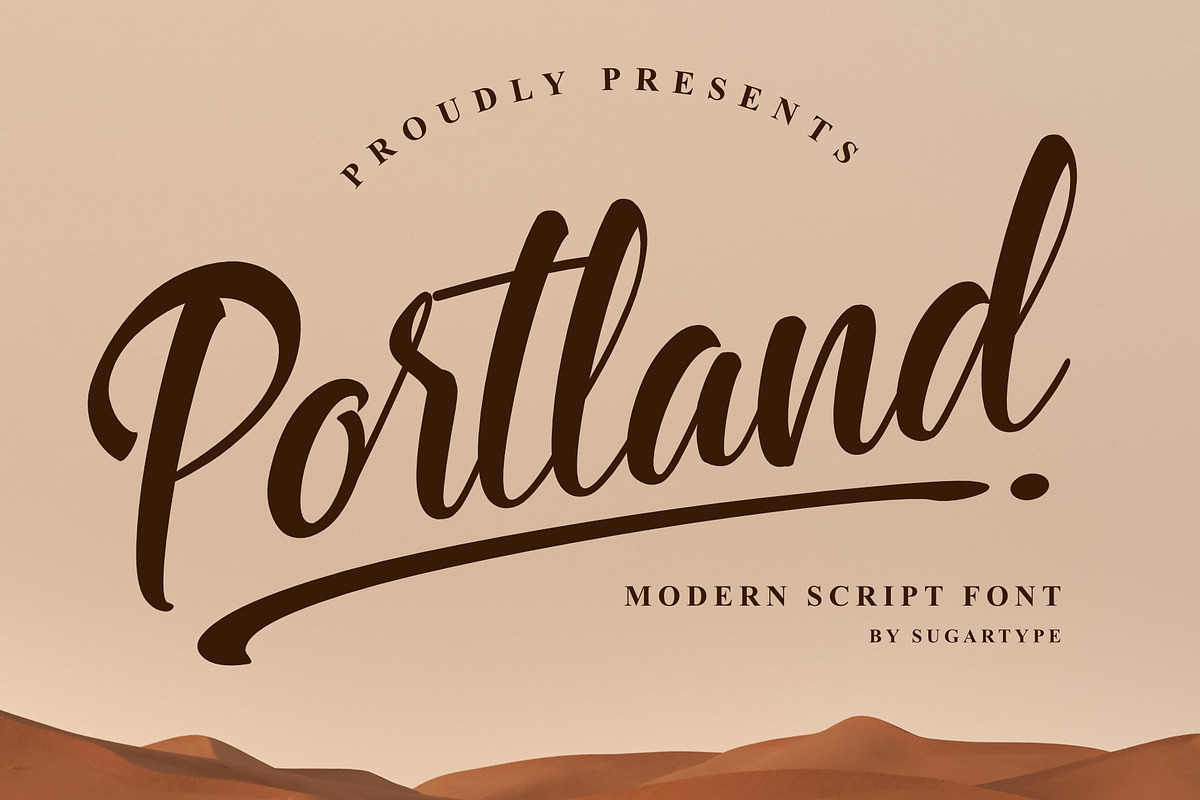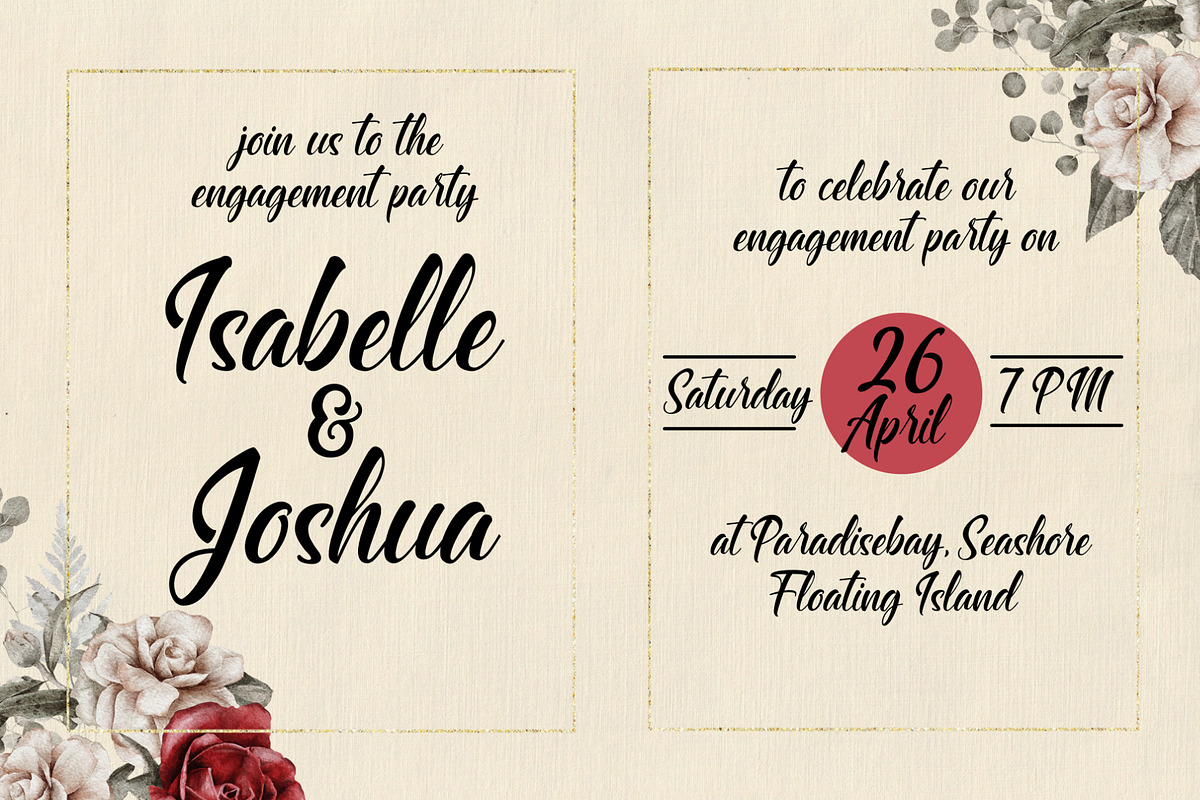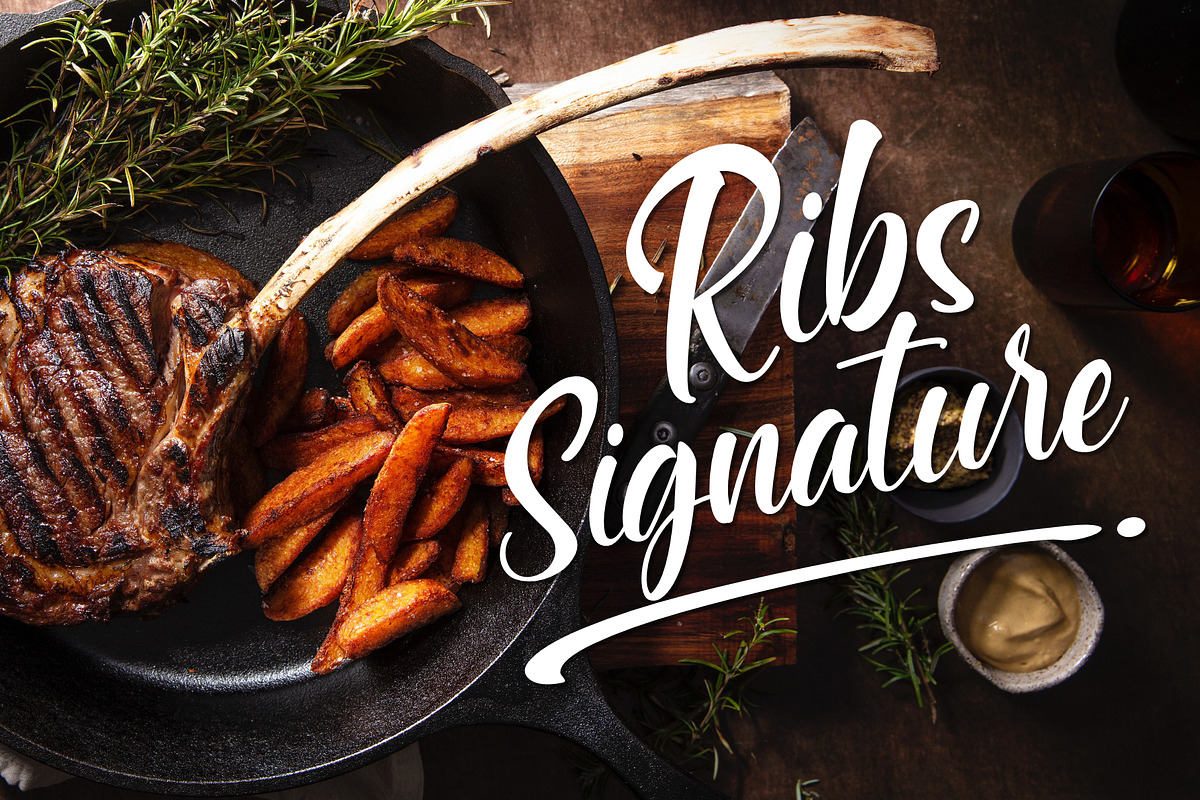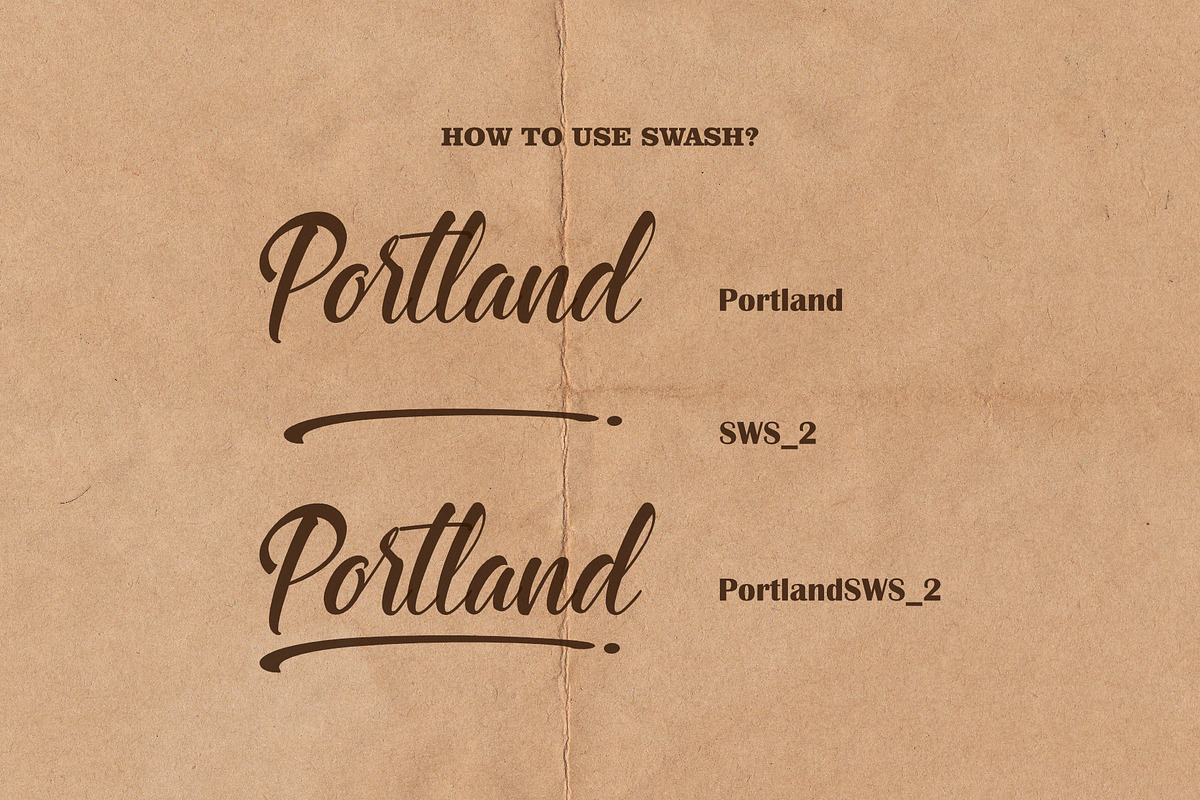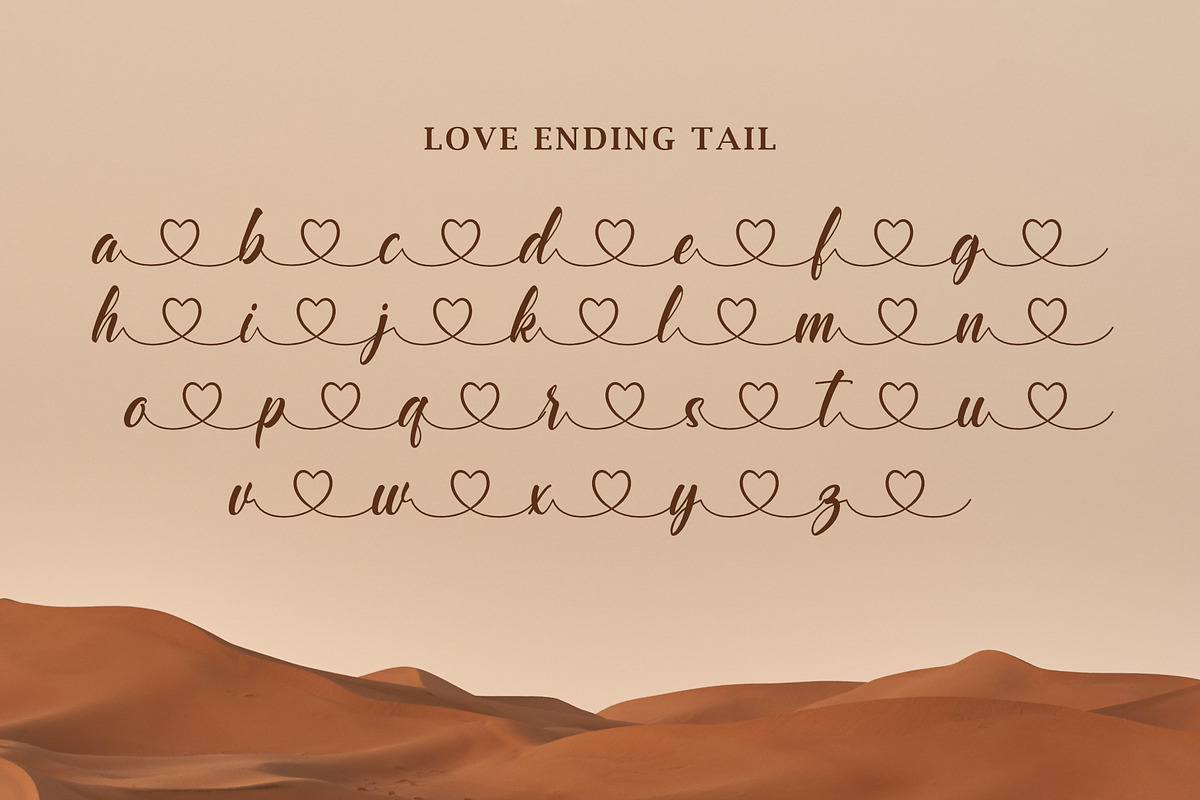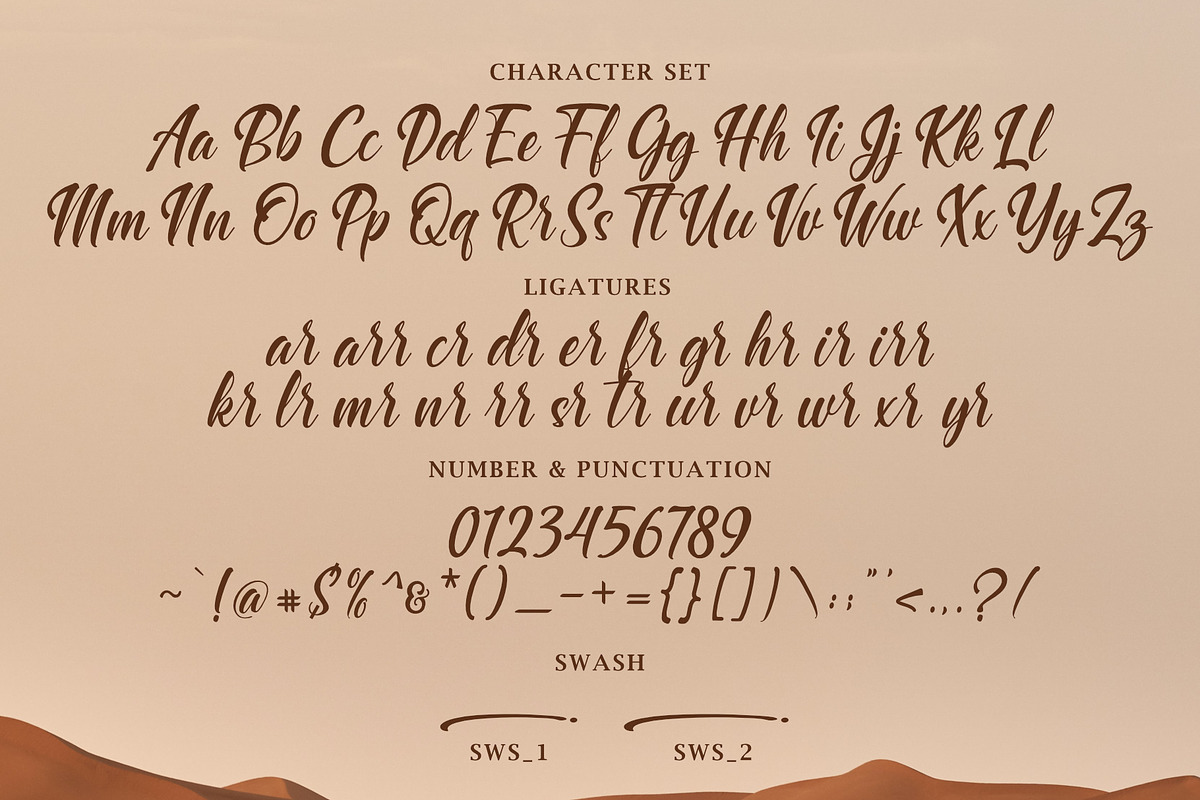
Portland | Modern Delicate Script
Portland is a delicate, professional, and modern script font.
With beauty and luxury, Portland adds sophistication and elegance to any design. It is perfect for weddings, headlines, brochures, logos, crafts, or anything that needs a refined look.
- Uppercase & Lowercase, Numeral & Punctuation, Ligature, and Alternates